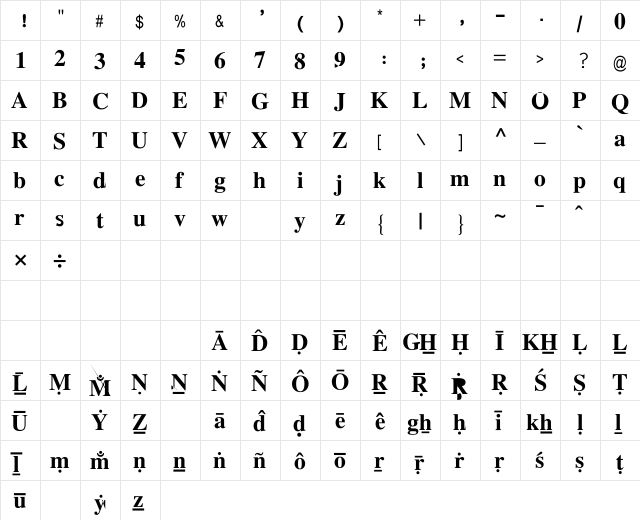
padmaa-Bold.1.1 Font Preview
padmaa-Bold.1.1 Bold.1.1
padmaa-Bold.1.1 Font Details
| Foundry | IndicTrans |
| Designer | Prof. Jitendra Shah,Sachin A Chavan and Vibha sinojia |
Design Context for padmaa-Bold.1.1 Typeface
padmaa-Bold.1.1 offers clean, dependable letterforms without strong stylistic allegiance, making it a practical choice for designers who need flexibility. The heavy weight commands attention and anchors typographic hierarchies.